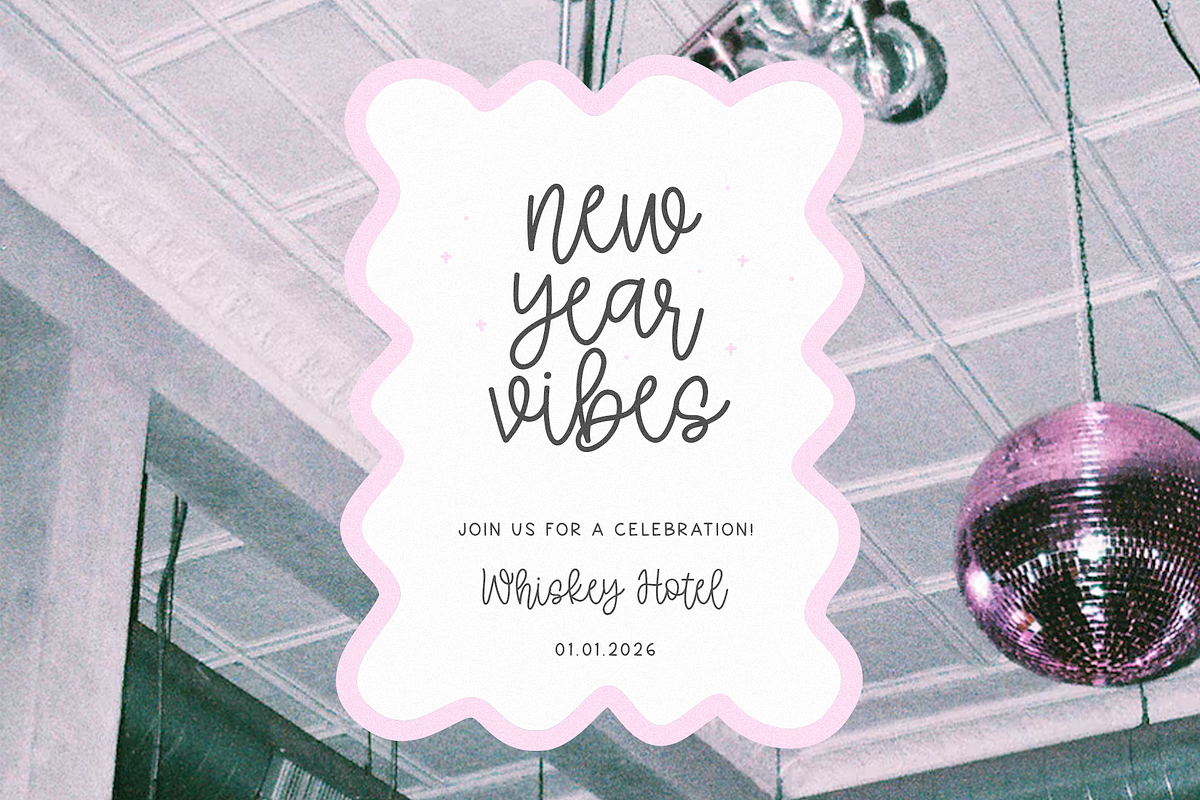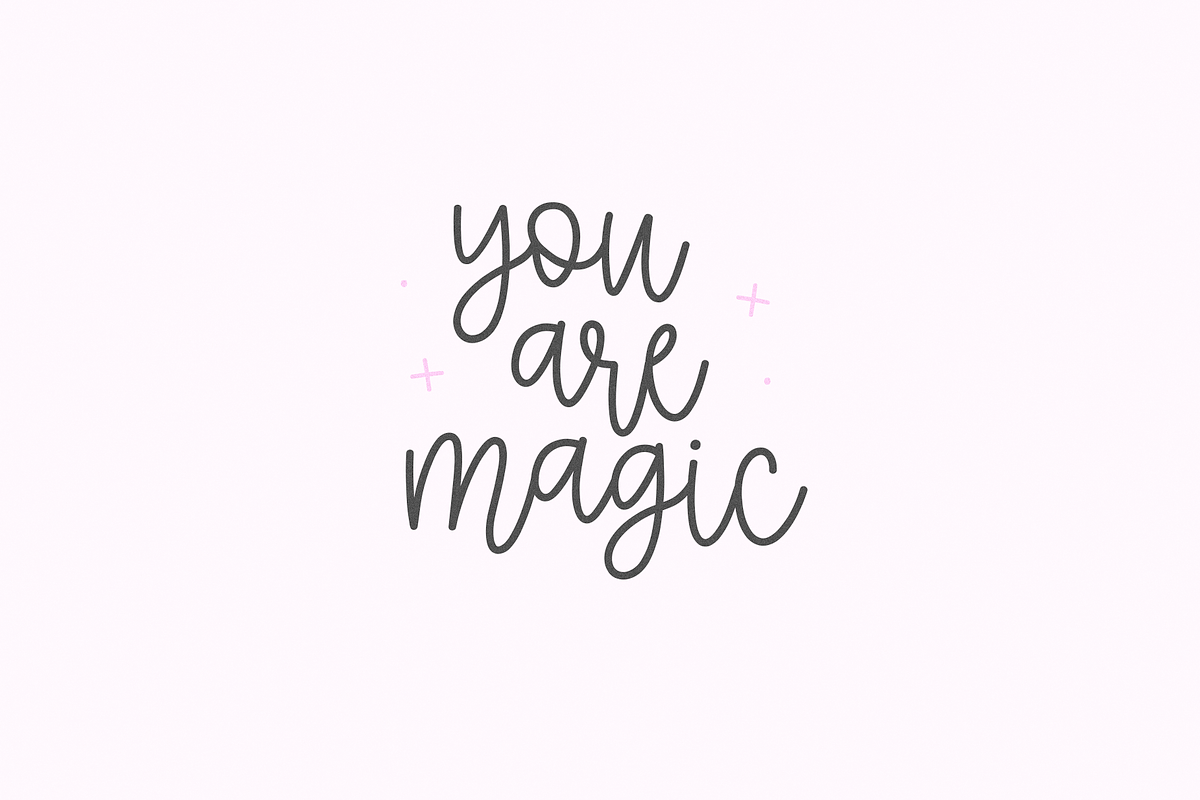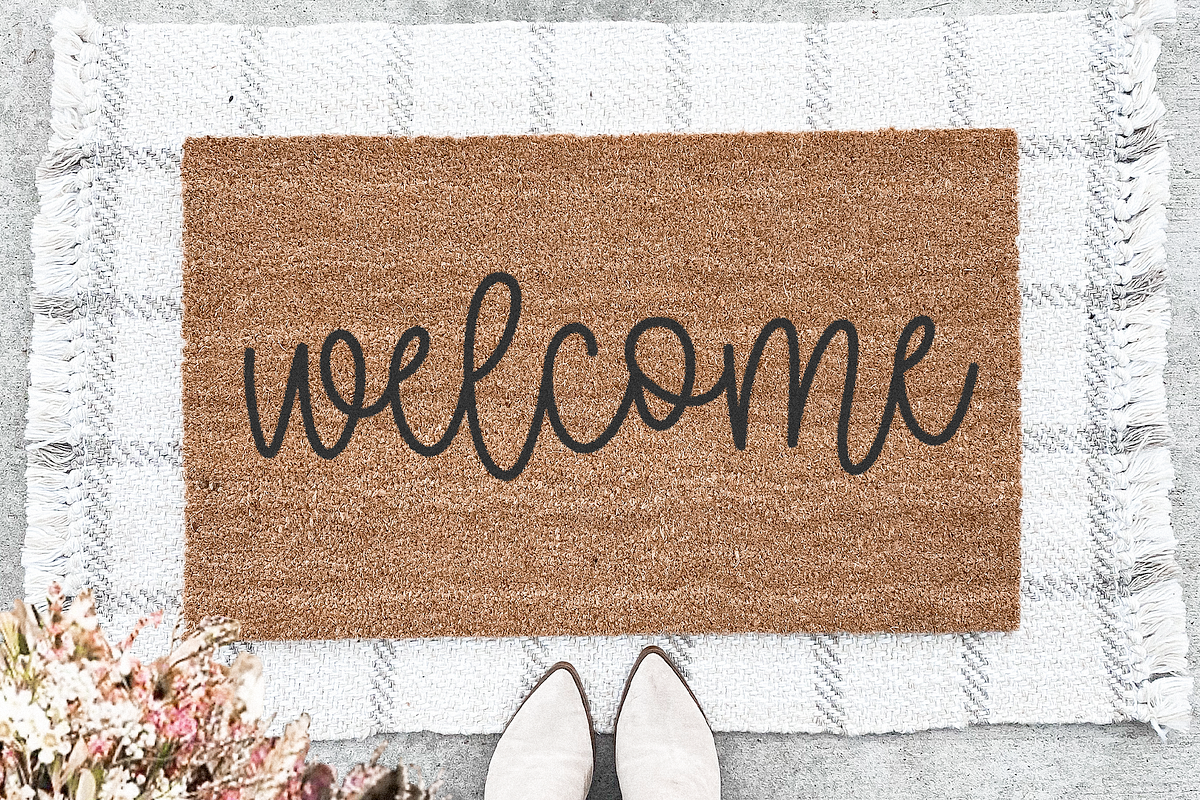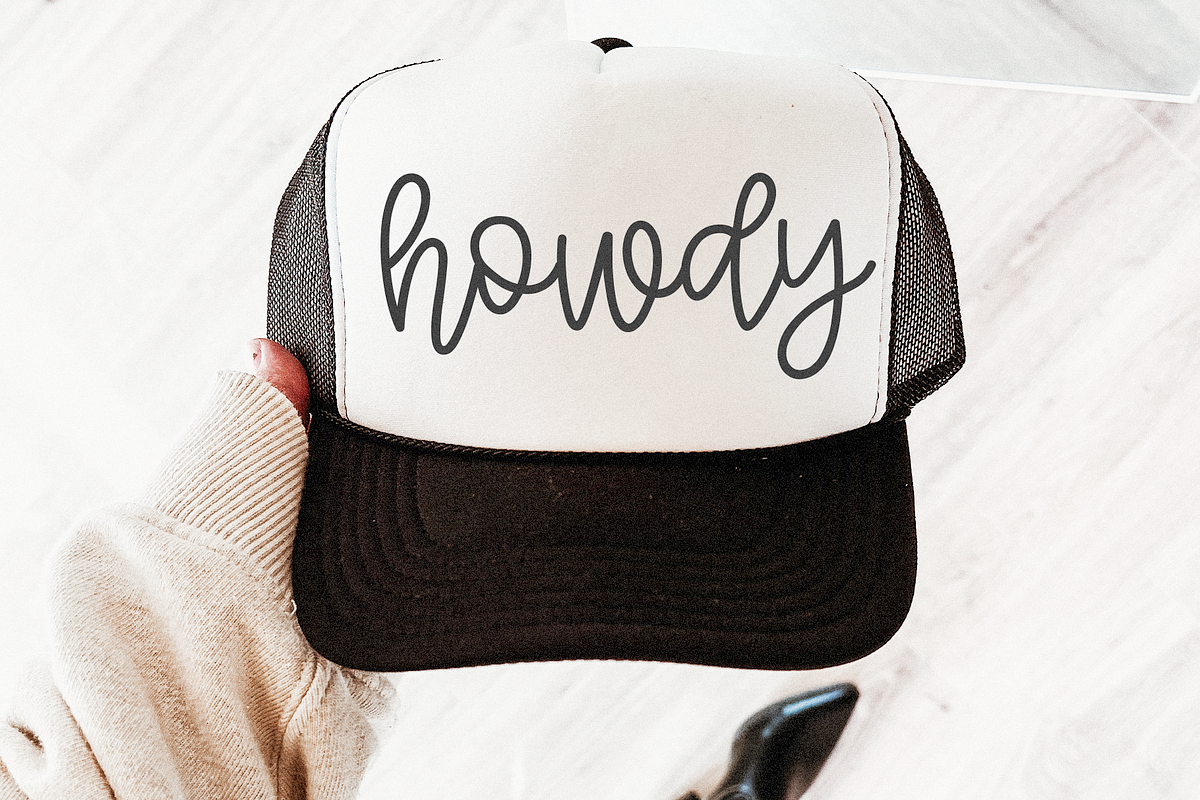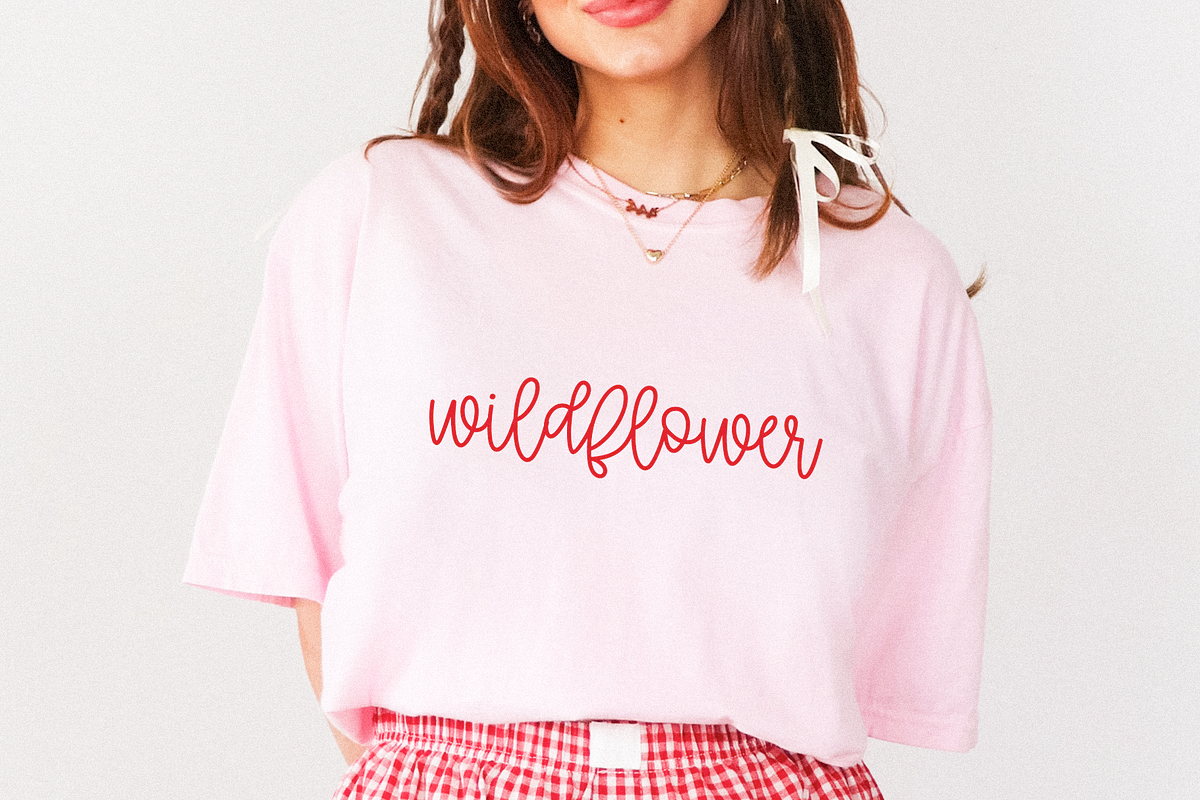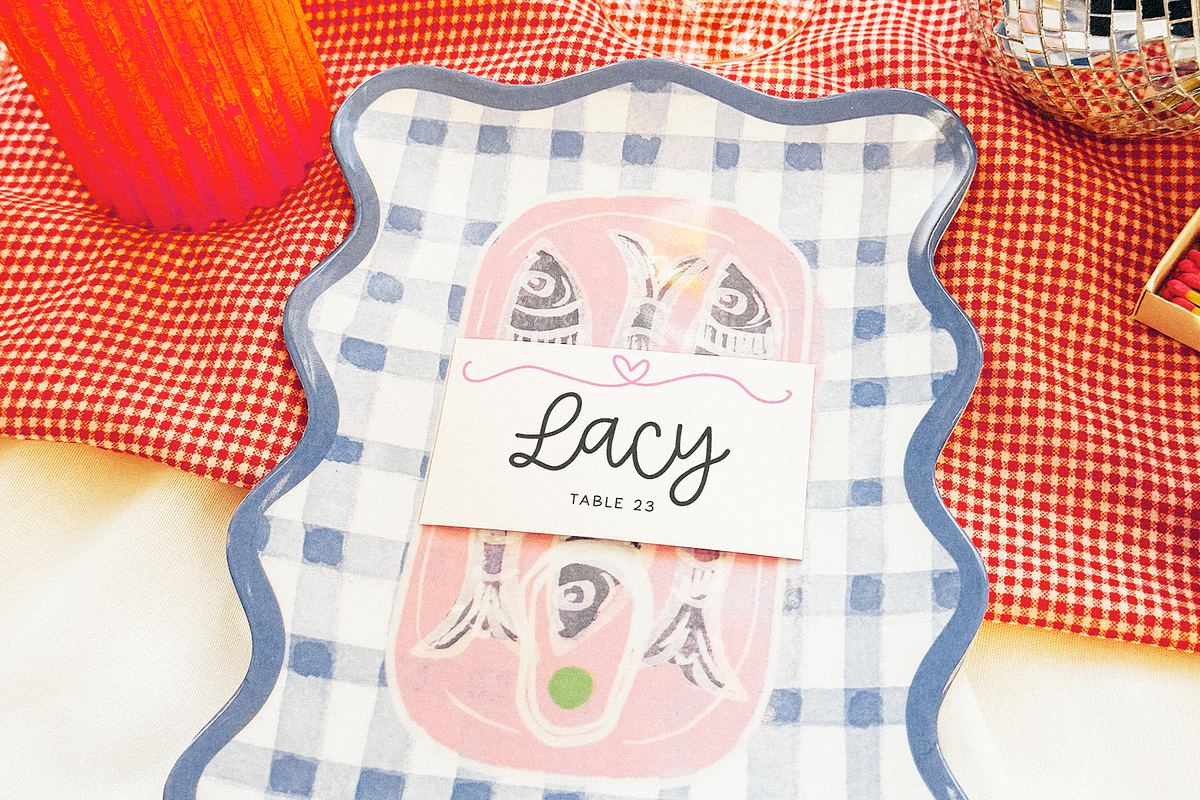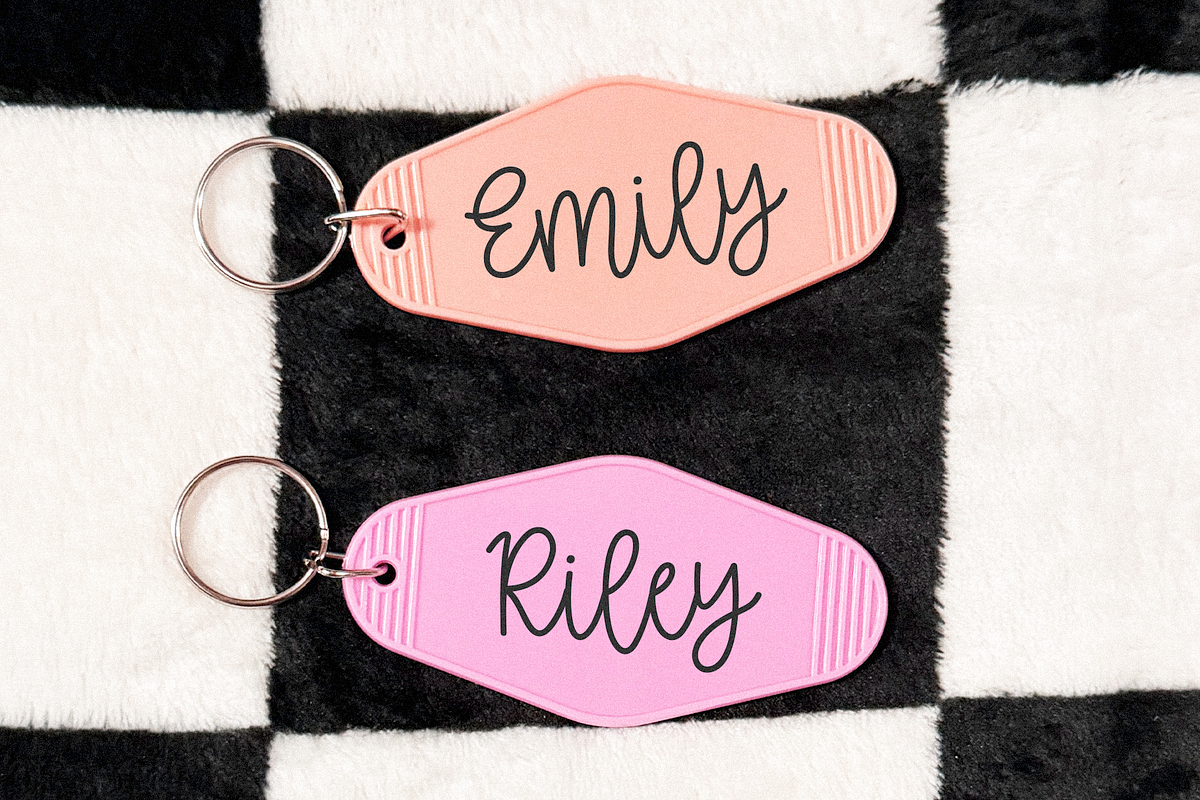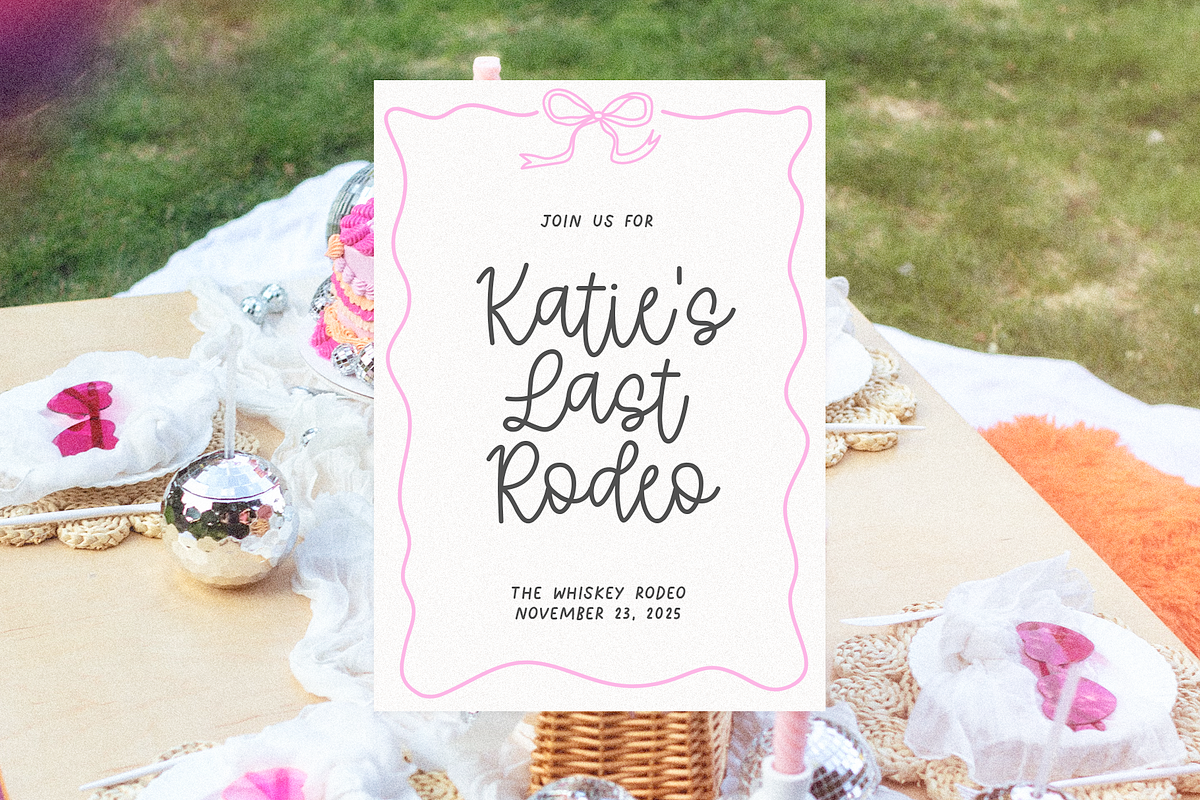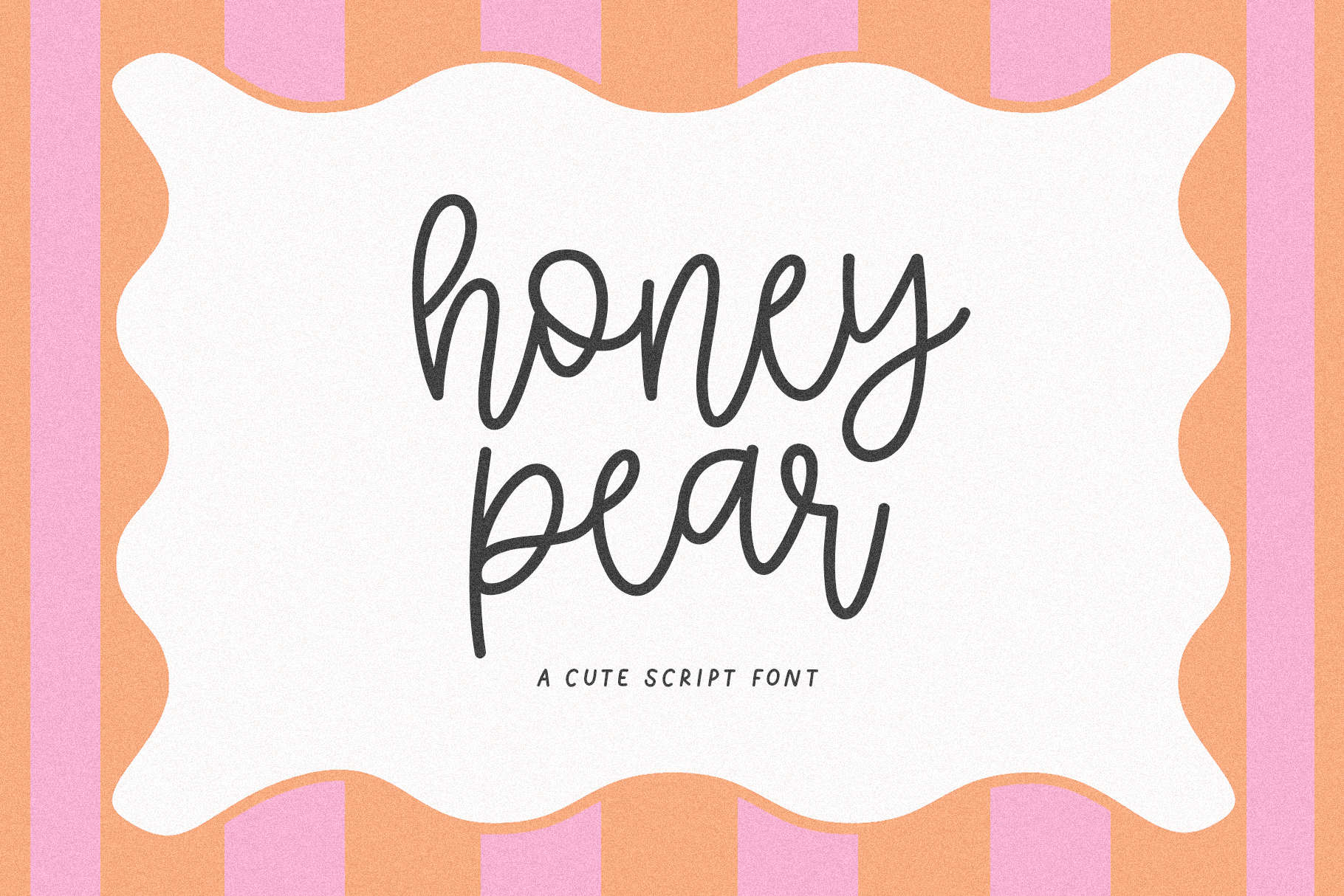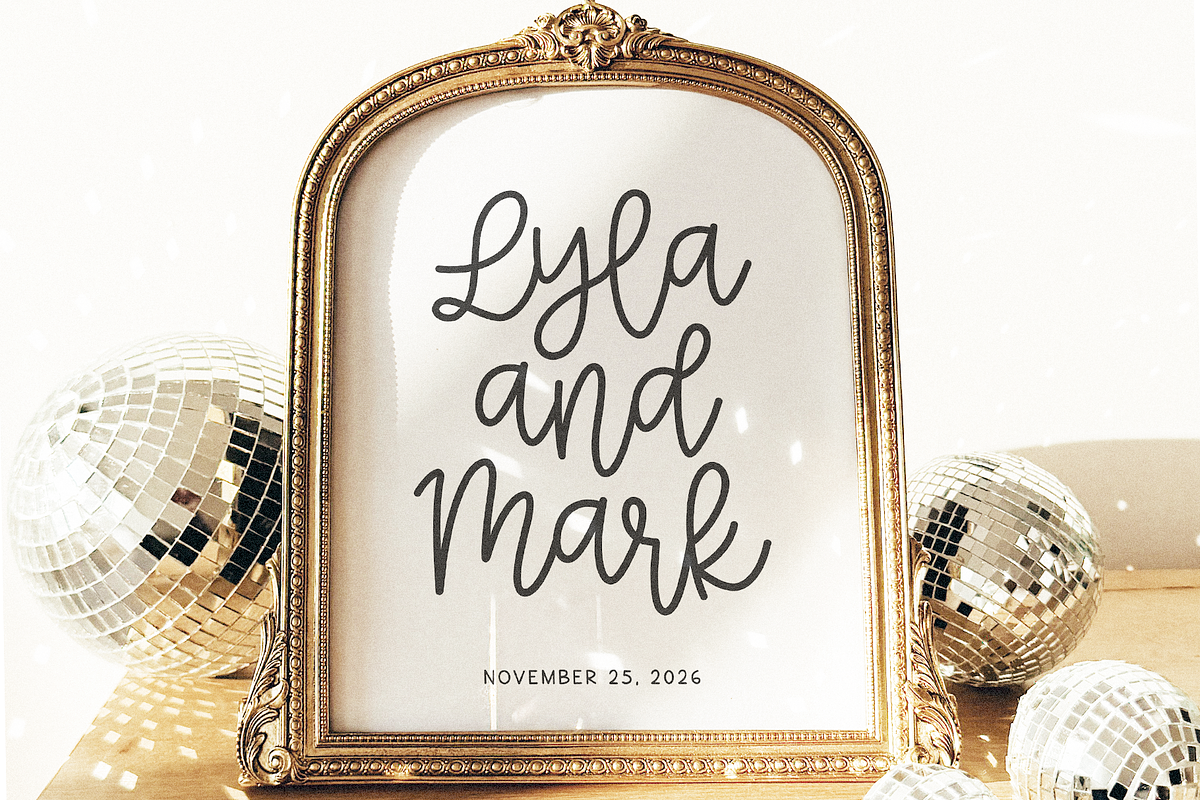
Honey Pear | Cute Script Font
Honey Pear is a cute handwritten script font.
This font is perfect for whimsy designs, cricut projects, Canva, svg files, wedding invitations, wedding decor, quotes, shirts, logos, goodnotes, procreate, invitations and more!